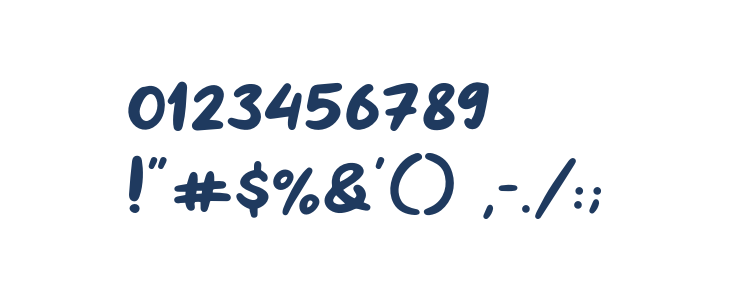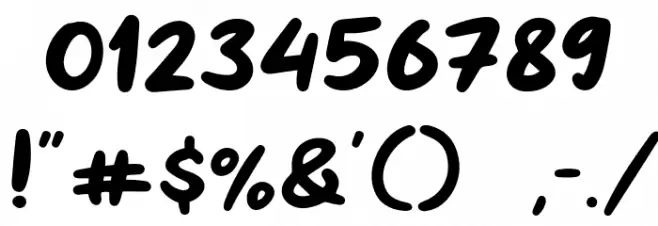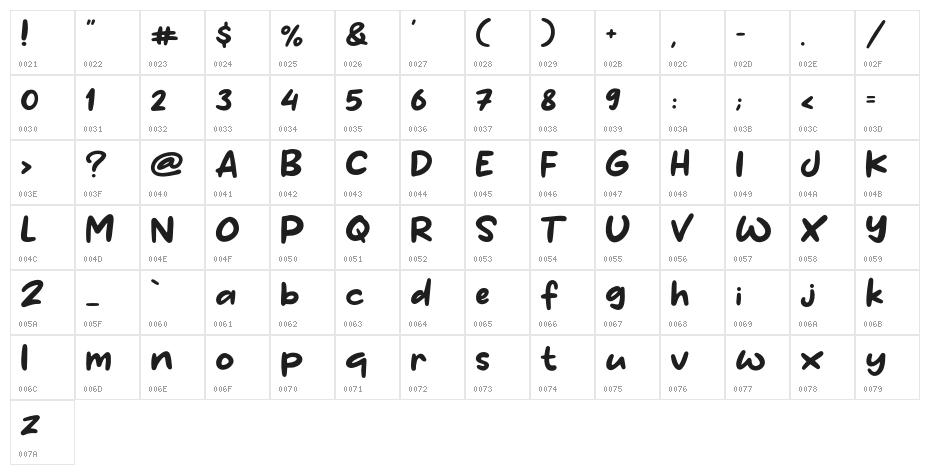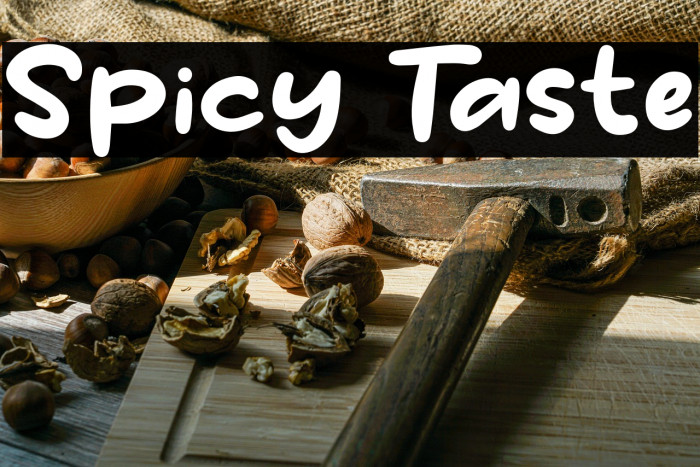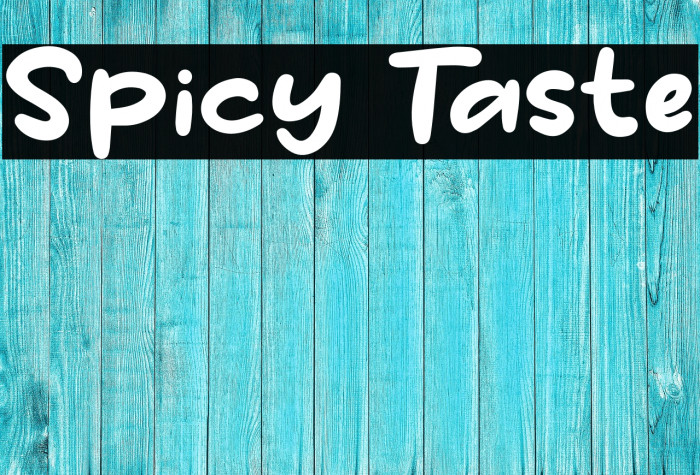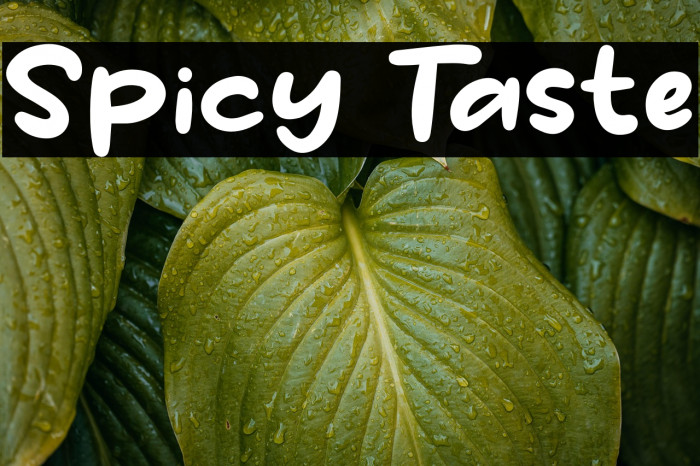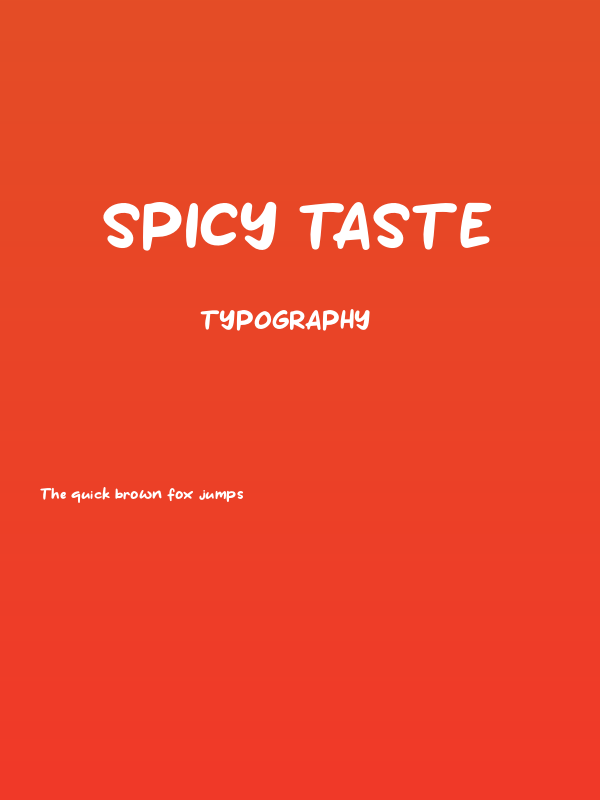
Spicy Taste Font
Spicy Taste Description
This playful and energetic font features bold, rounded characters with a hand-drawn appearance. The strokes are consistent in thickness, giving it a uniform look while maintaining a casual, friendly vibe. The letters are slightly tilted, adding to the dynamic feel of the font. The overall style is informal, making it suitable for projects that require a personal touch. The numbers and special characters follow the same design principles, ensuring coherence across all elements.
| Proposed Projects | Ideal for children's books, comic strips, playful branding, and casual invitations. |